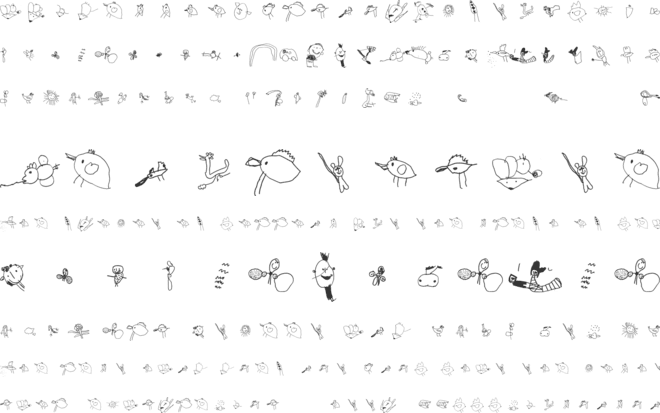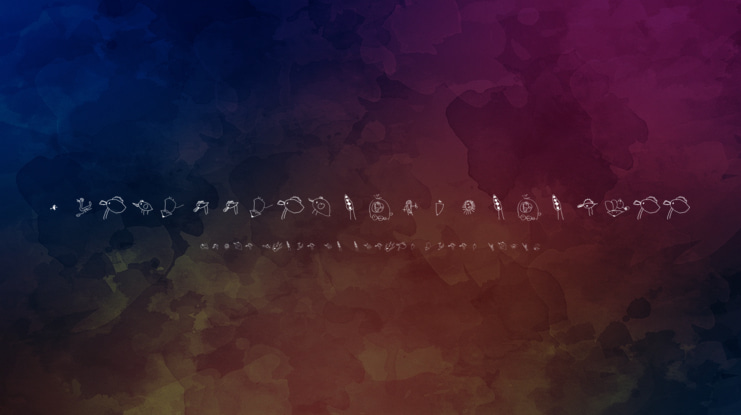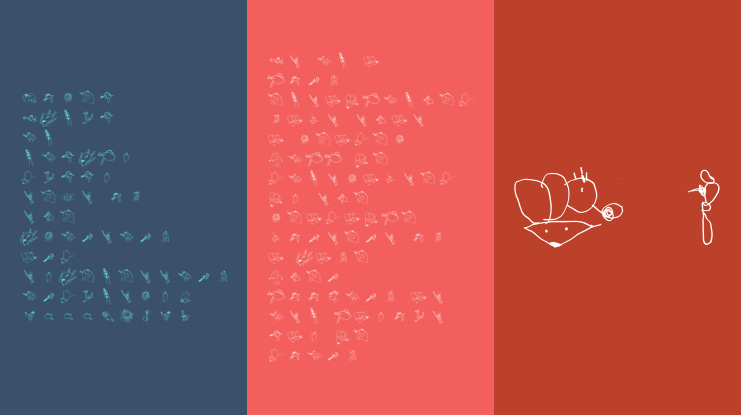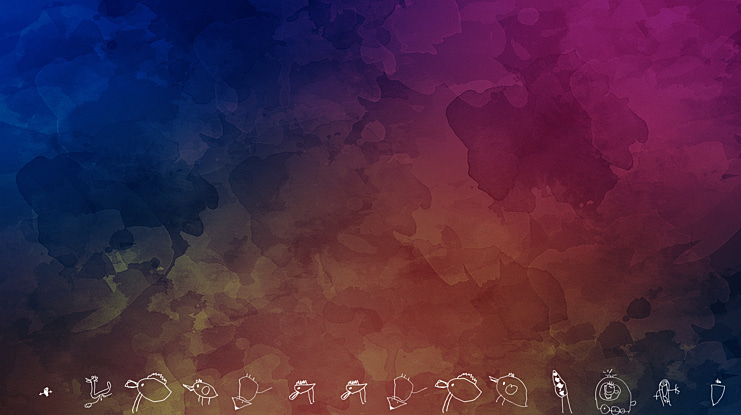
Julidoodles_3yrs_small Font
Doodles and drawings of my daughter Julie during the year of 2017 (when she was 3 years old). All donations would be used solely on getting her new markers and papers. Or candies. I´m still undecided.
Lots of birds, suns, foxes, flowers, unidentified animals and big smiles. The sun for letter "x" was actually drawn when she was celebrating her 2 years birthday. I wish I had this talent back then.